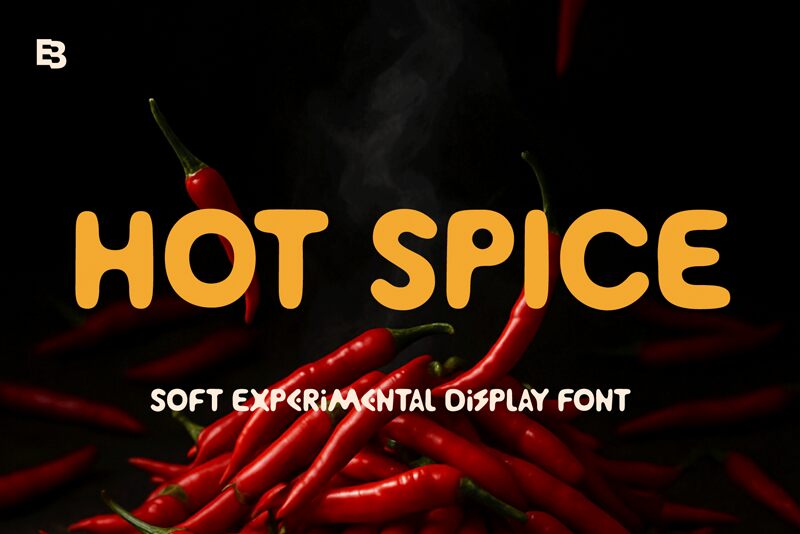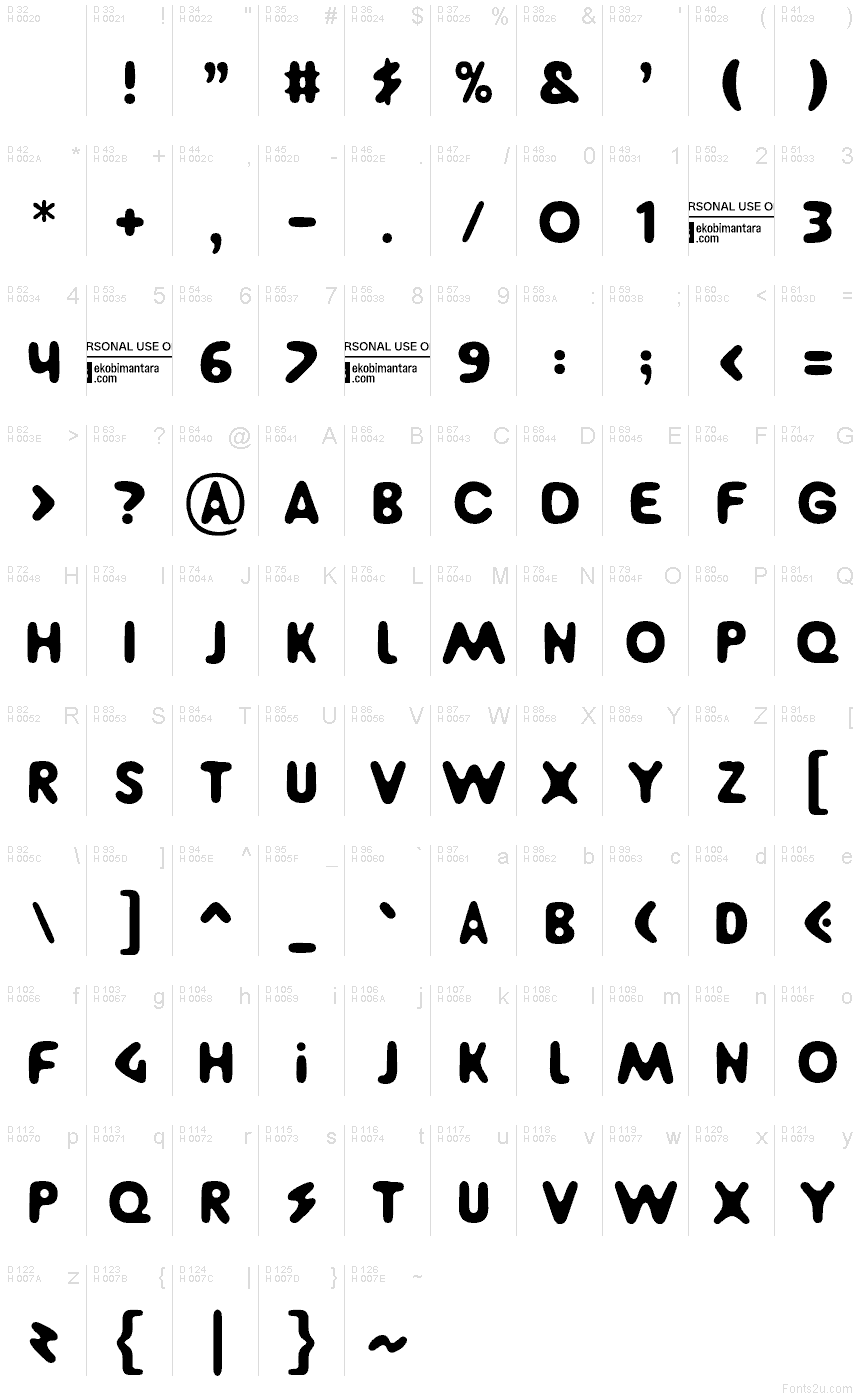
Hot Spice Trial Regular
Hot Spice font by Eko Bimantara is a free rounded groovy display typeface. Its pillowy curves, scooped cuts, and smooth, inky weight give every word a chewy, almost tactile bounce. Letters cluster with a lively rhythm that feels bold yet friendly, keeping messages loud without looking harsh. It’s the kind of warm, bulbous texture that turns simple phrases into memorable marks.
Using Hot Spice, headlines snap on food packaging, street-food menus, beverage labels, music festival posters, playful merch, and social promo graphics. The generous curves hold shape beautifully at big sizes; give it a touch of extra tracking to let the forms breathe. For body copy, pair this free font with a plain, workhorse sans to keep the spotlight on Hot Spice’s juicy personality.